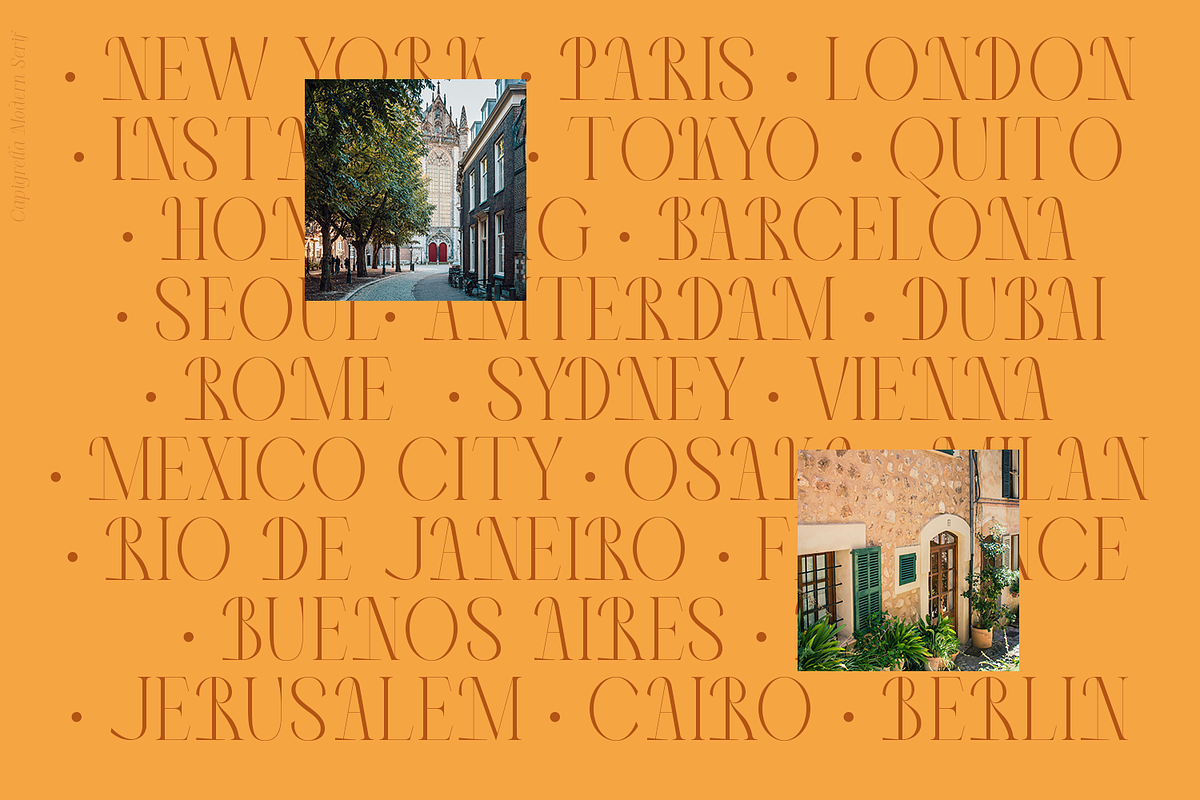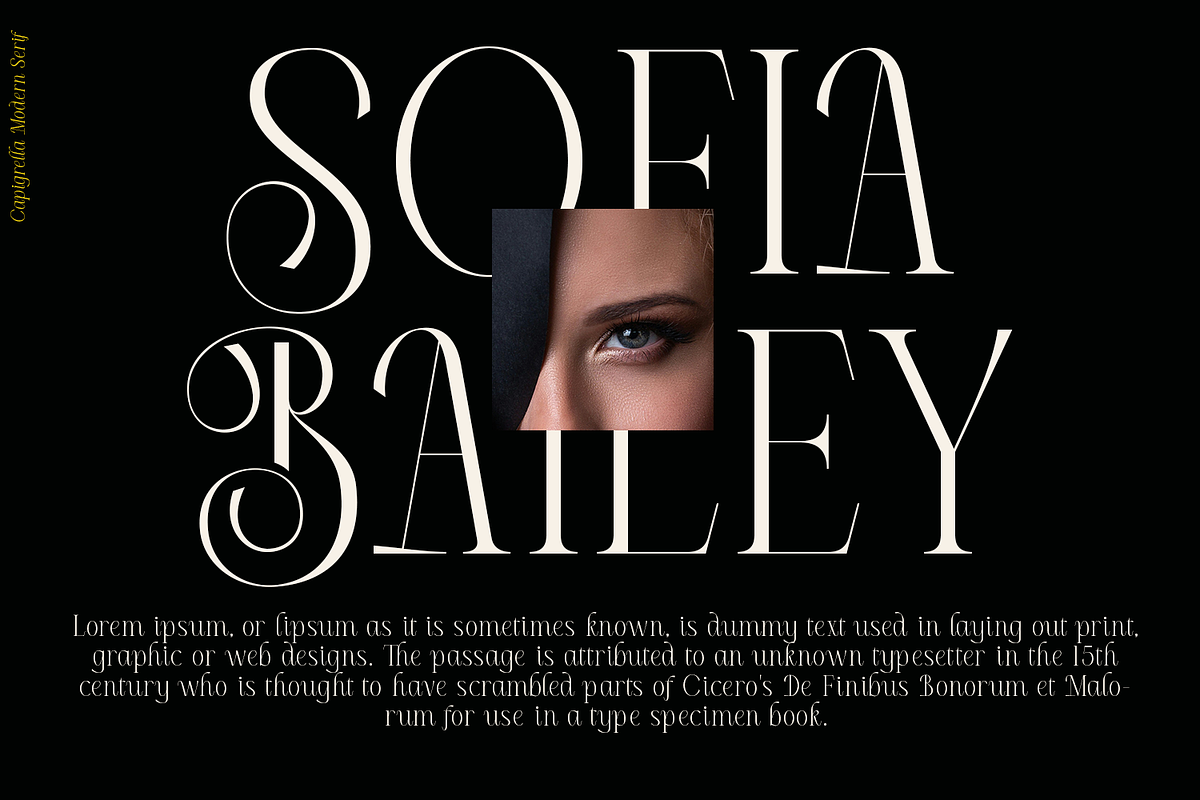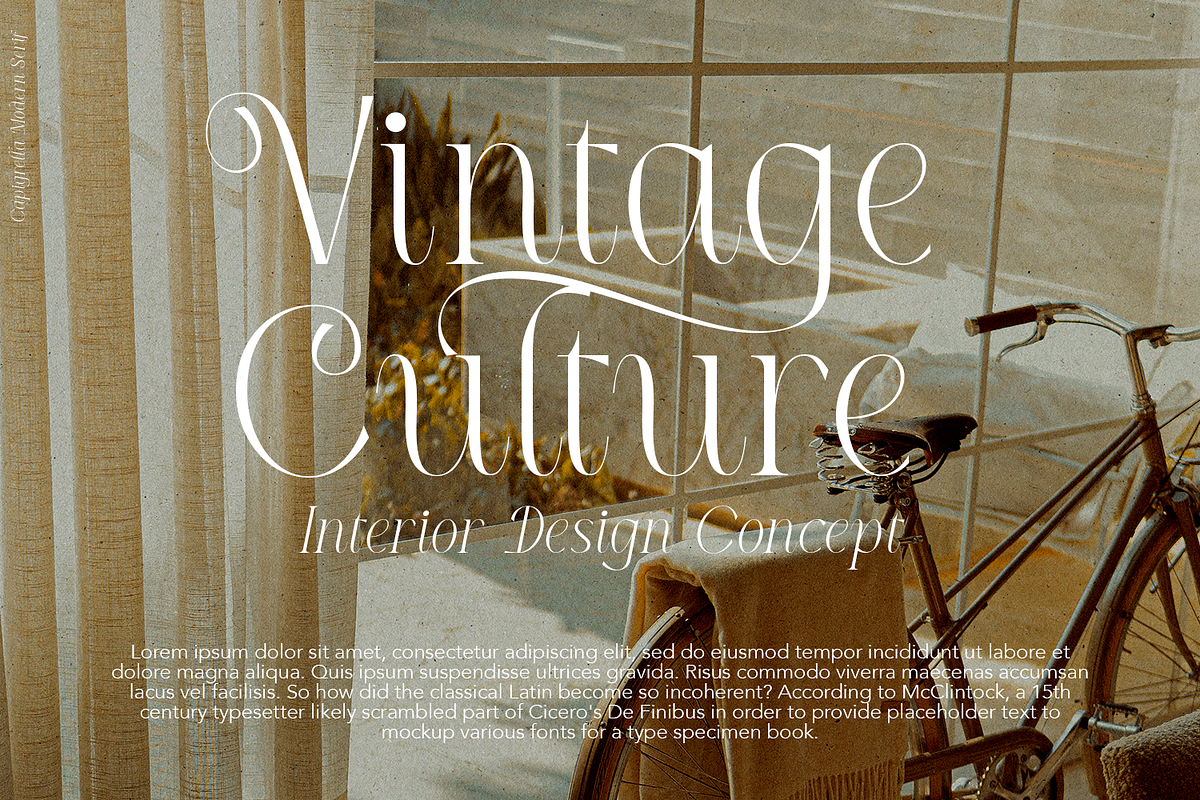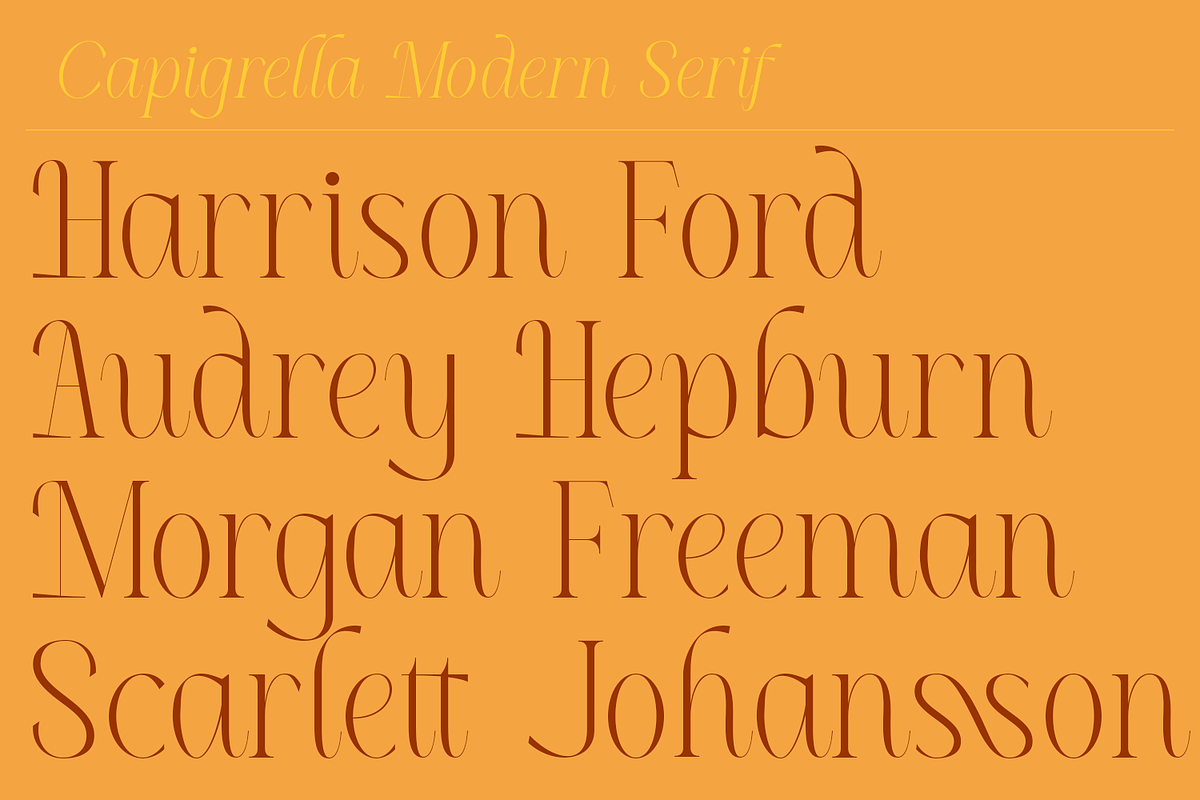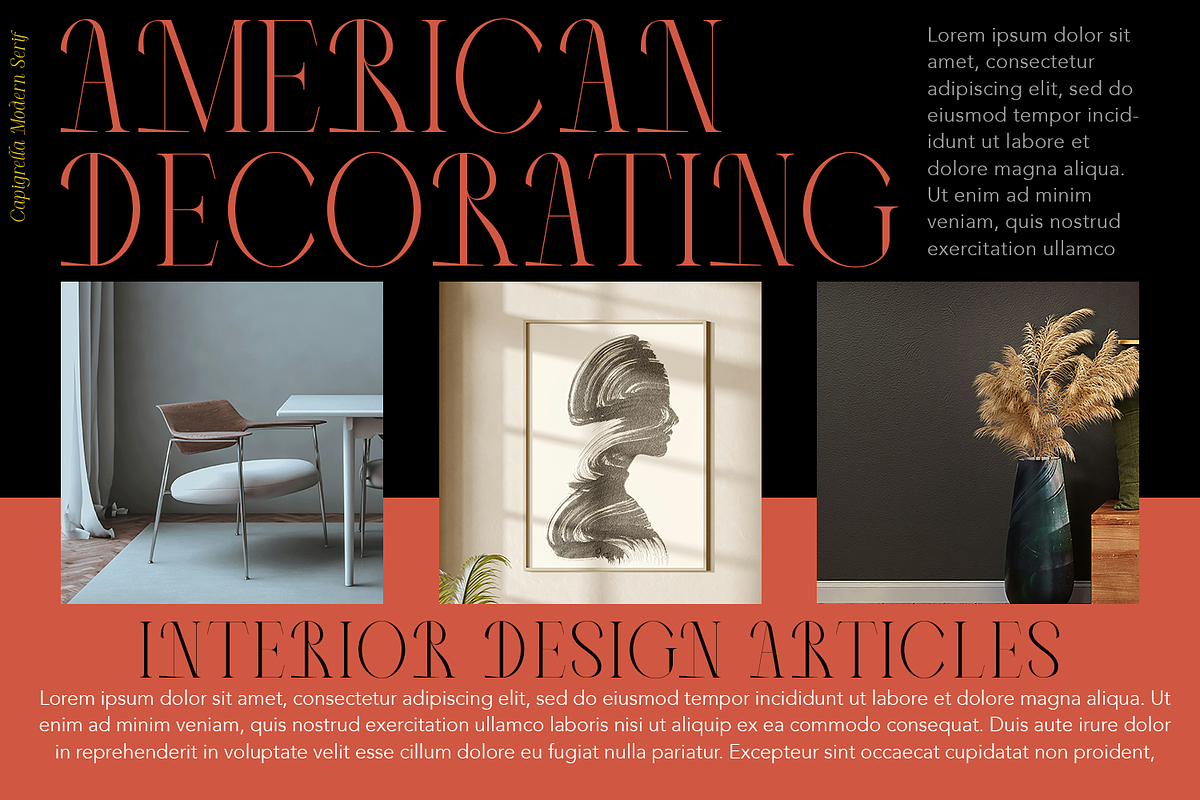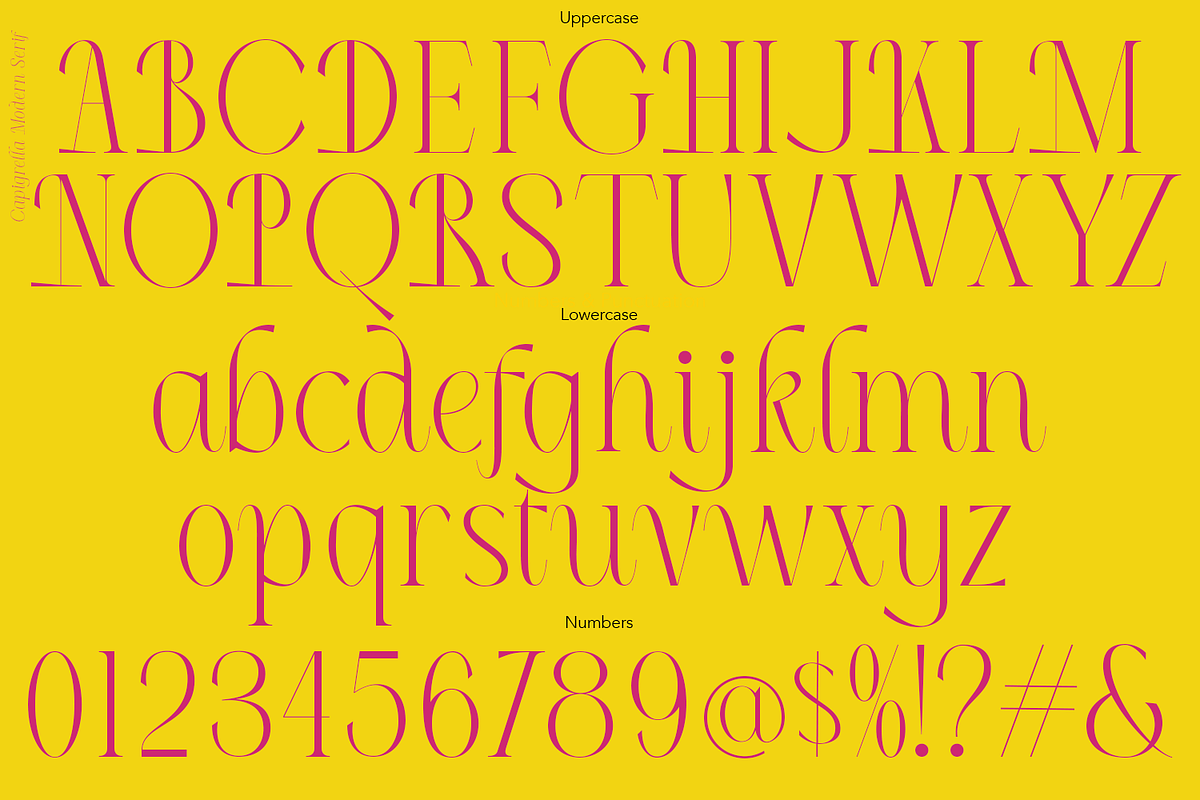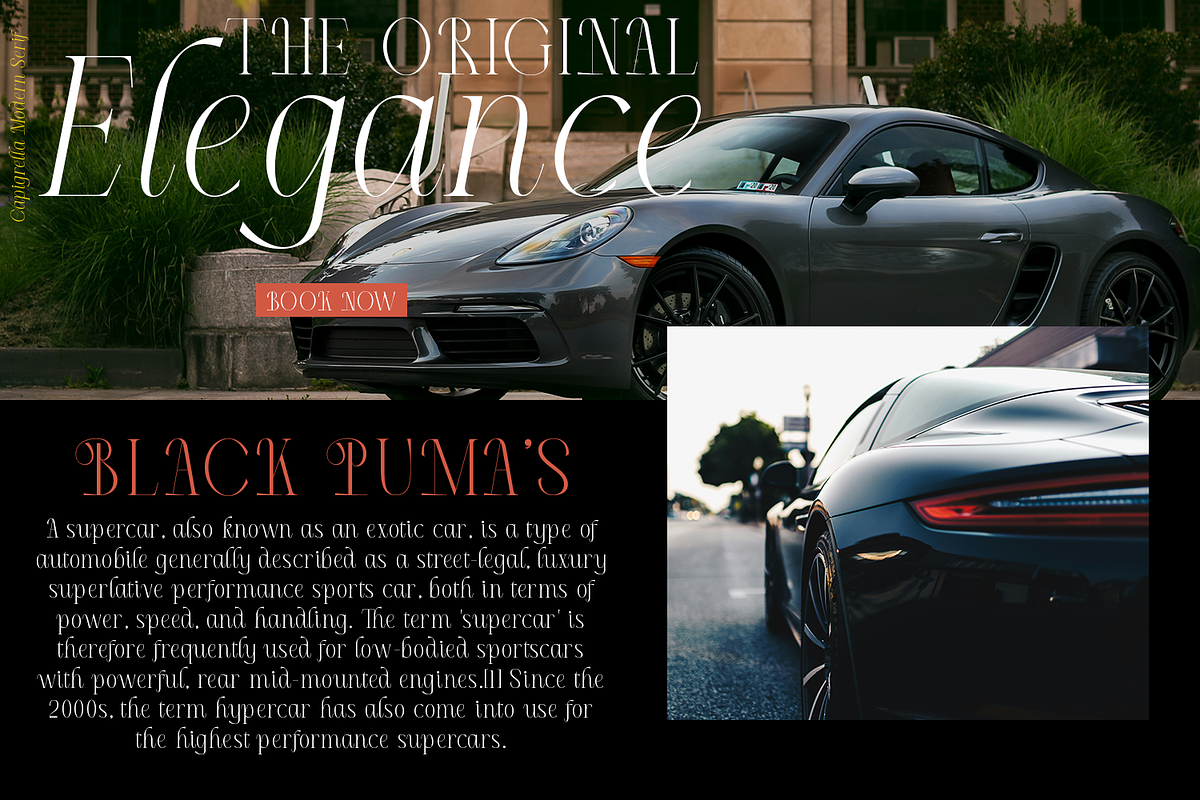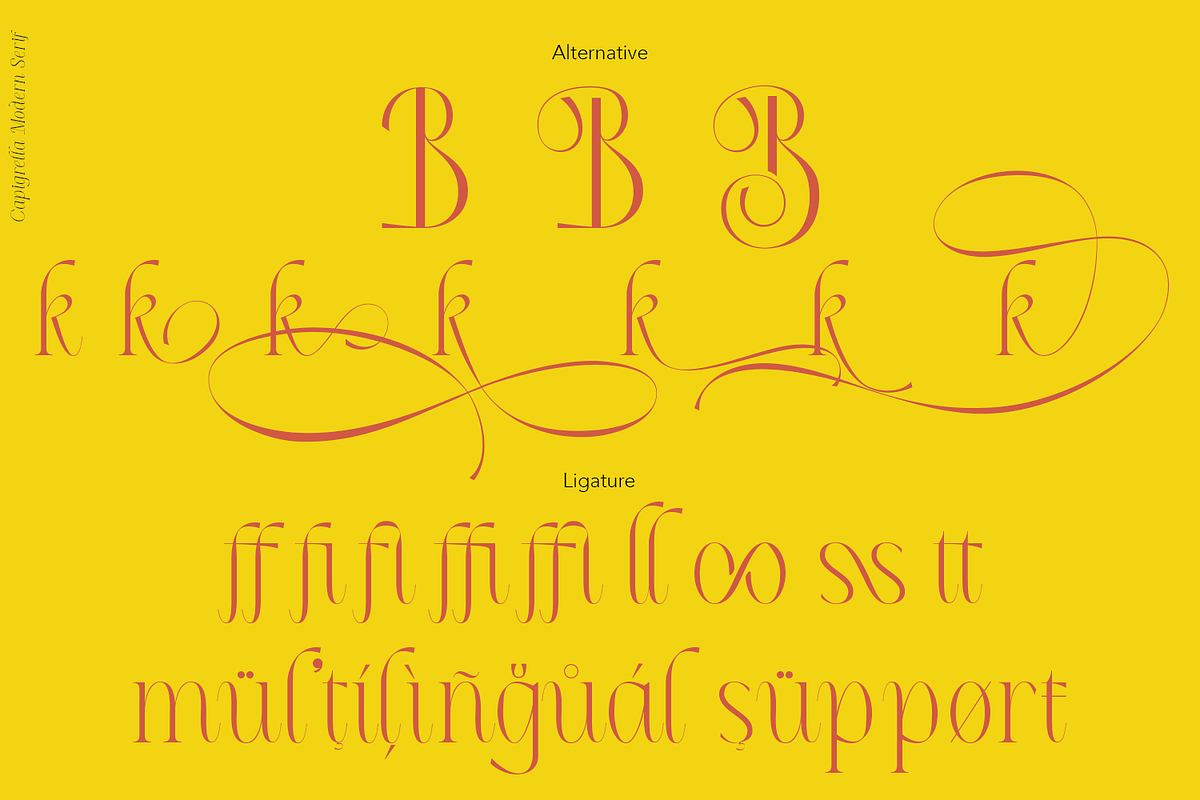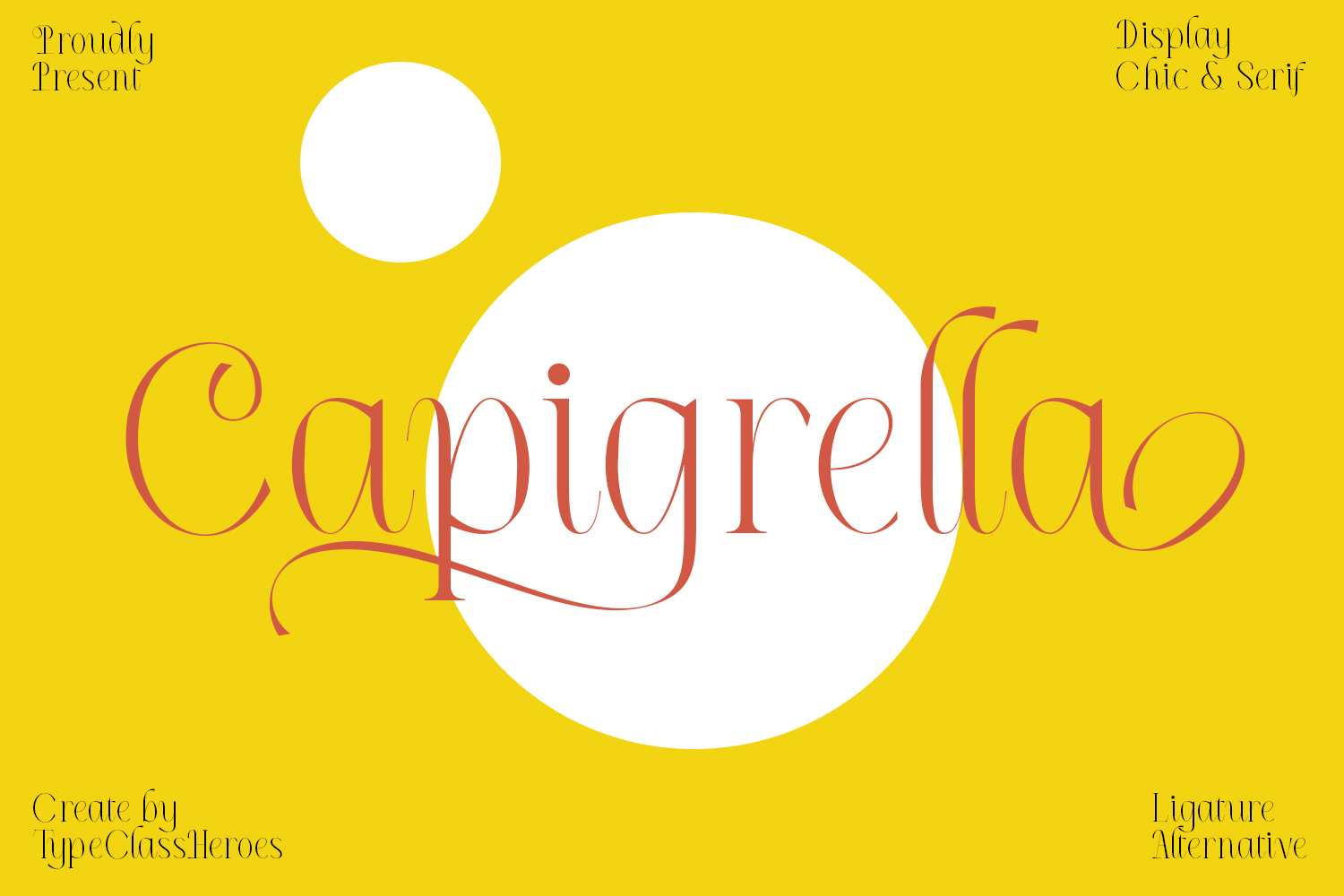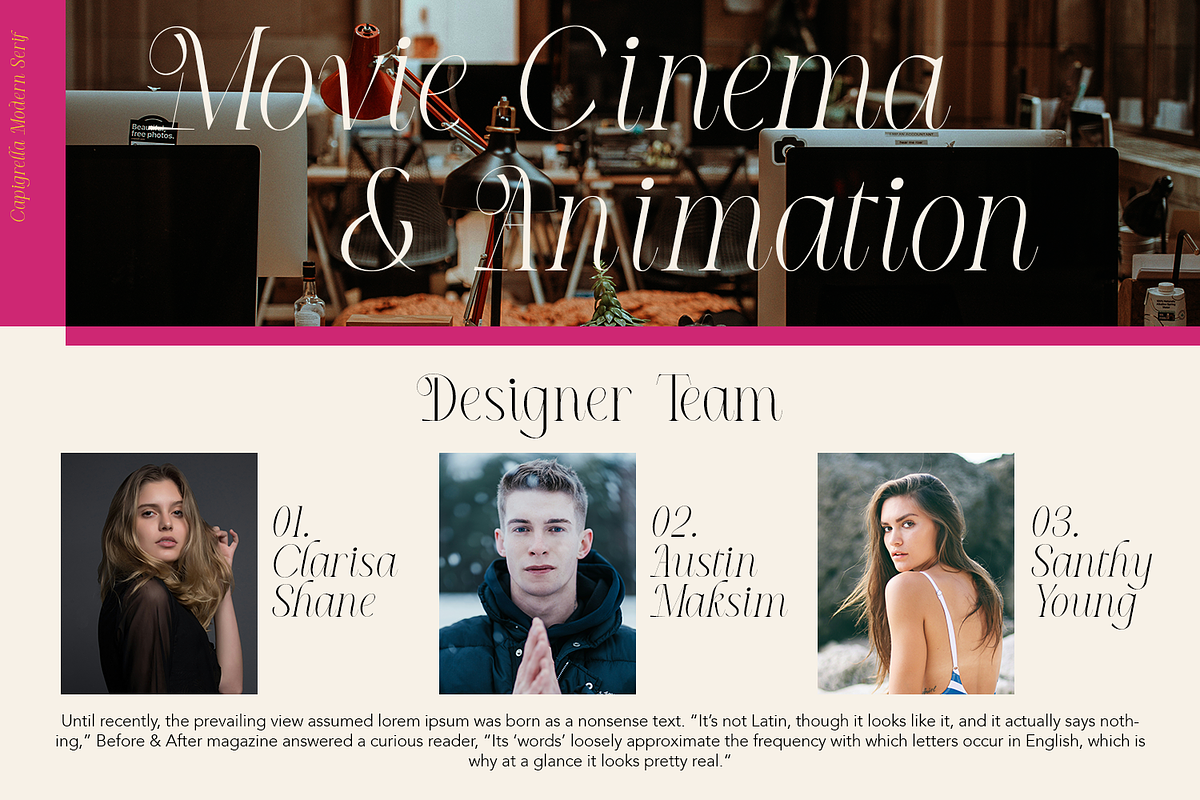
Capigrella Font
Hello I'm really excited to introduce Capigrella is a chic serif with classic feel become elegant minimalist look and this font has the potential to bring each of your creative ideas to the highest level. With style combine with ligatures and special alternative glyphs so you can create a lots with layouts and compositions. Capigrella brings a touch of luxury and bespoke custom typography to logos, websites, social media quotes, wedding branding, and many more.
- International Glyphs
- ligature